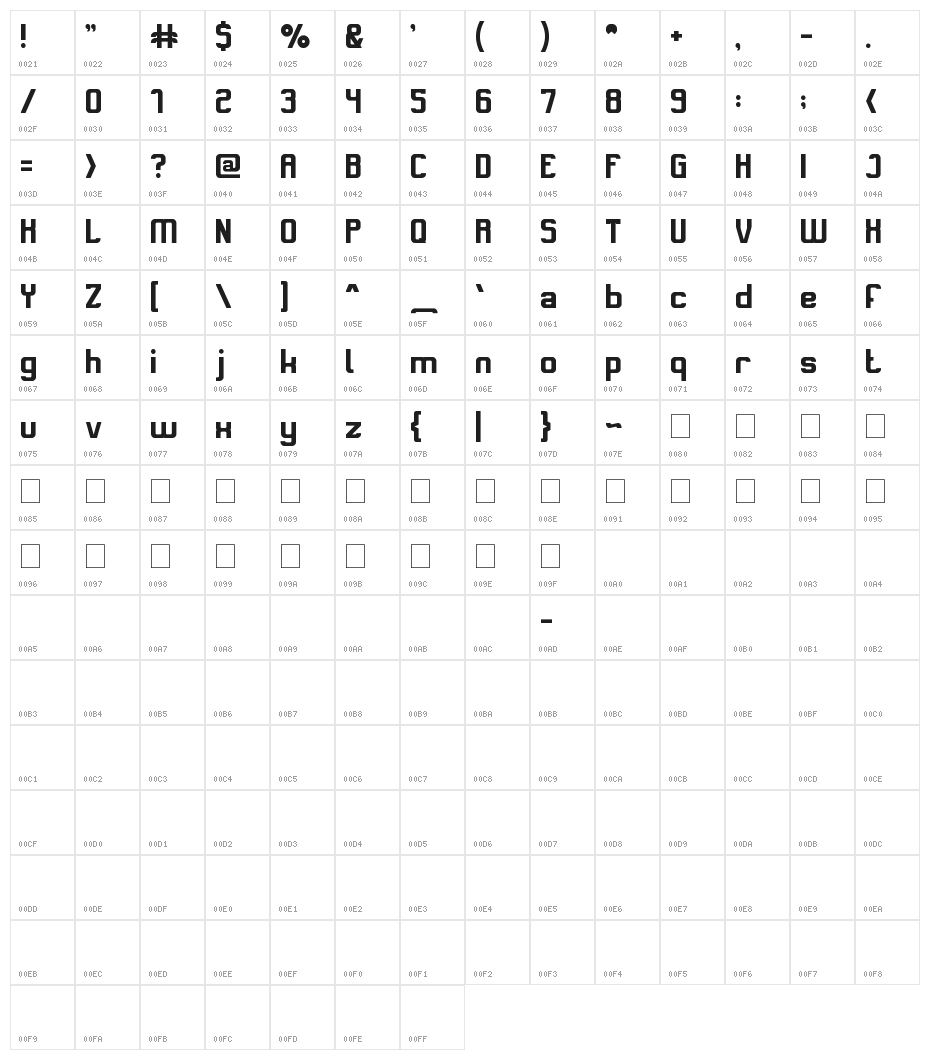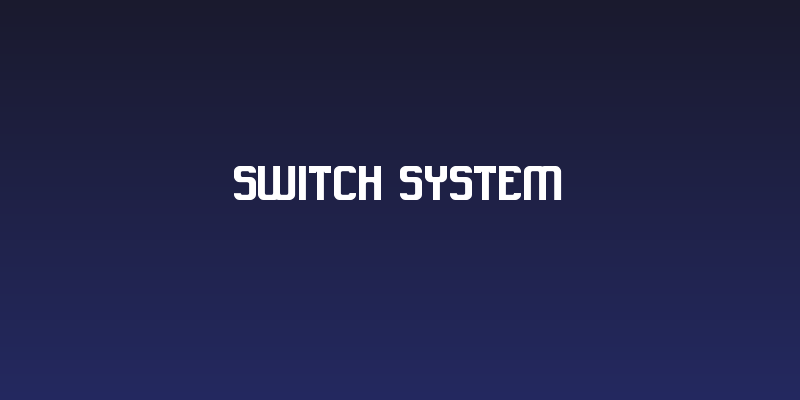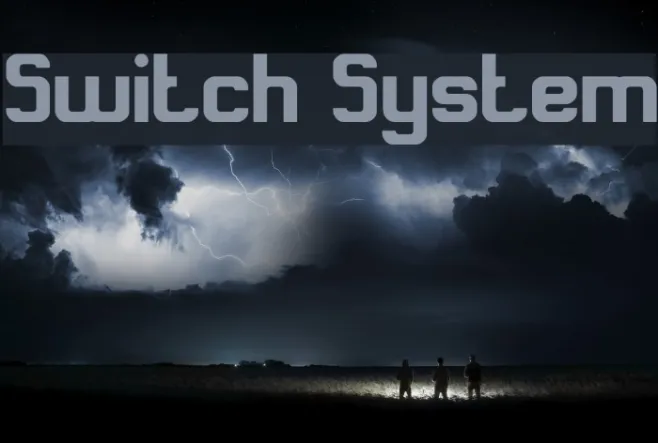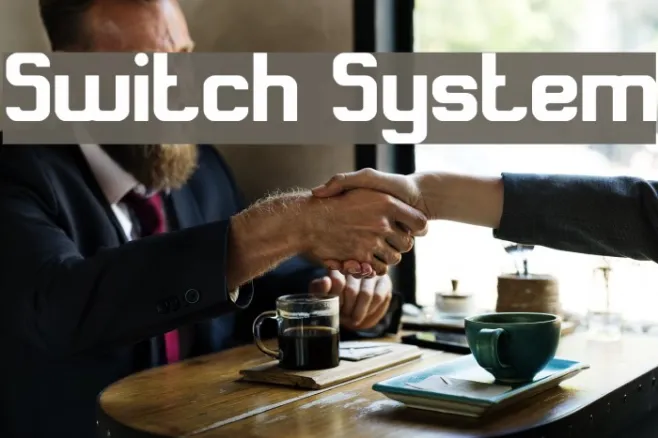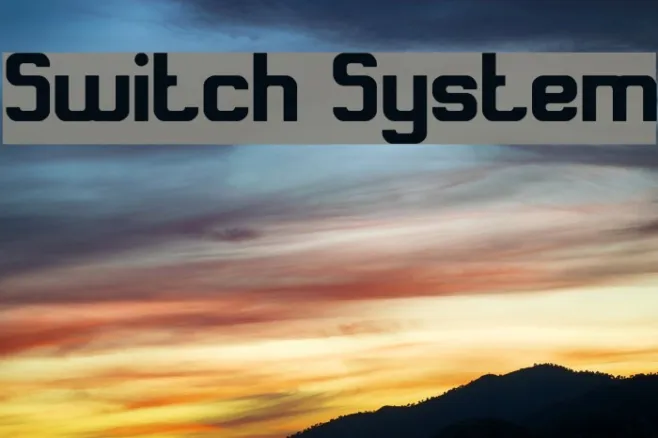
Switch System Font
Switch System Description
This font features a bold, geometric style with a modern and futuristic appeal. The characters are constructed with consistent stroke widths, giving it a uniform appearance. The uppercase letters are blocky and robust, while the lowercase letters maintain a similar structure, offering a cohesive look across all text. The numerals and special characters follow the same design principles, ensuring readability and visual harmony. The font's design is characterized by its squared-off edges and minimalistic aesthetic, making it suitable for contemporary design projects.
| Proposed Projects | Ideal for technology branding, modern advertising, futuristic posters, and digital interfaces. |